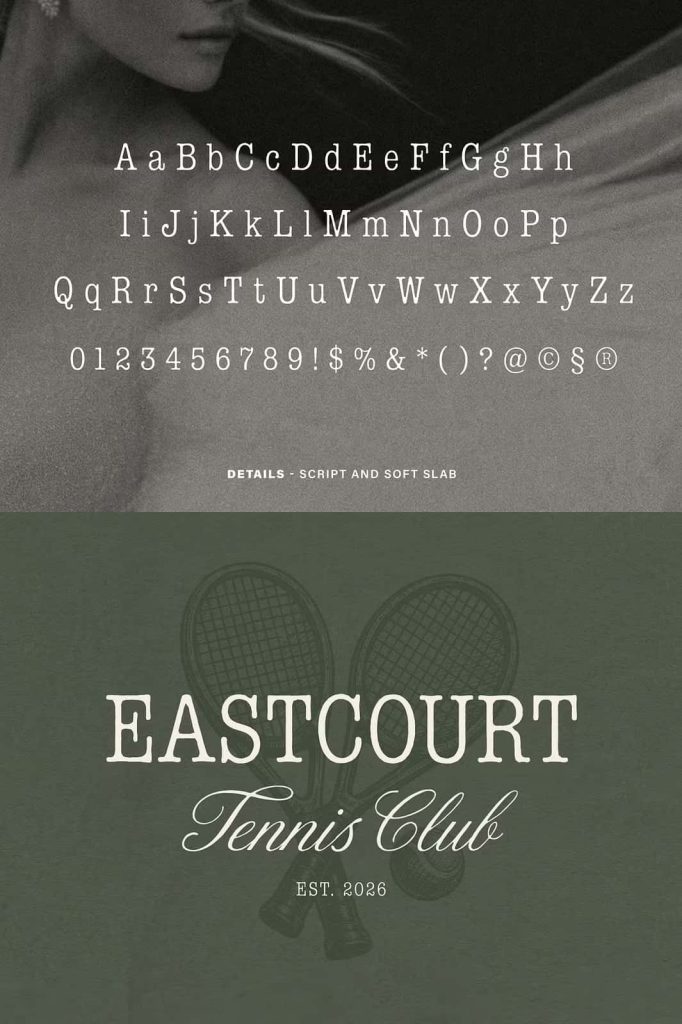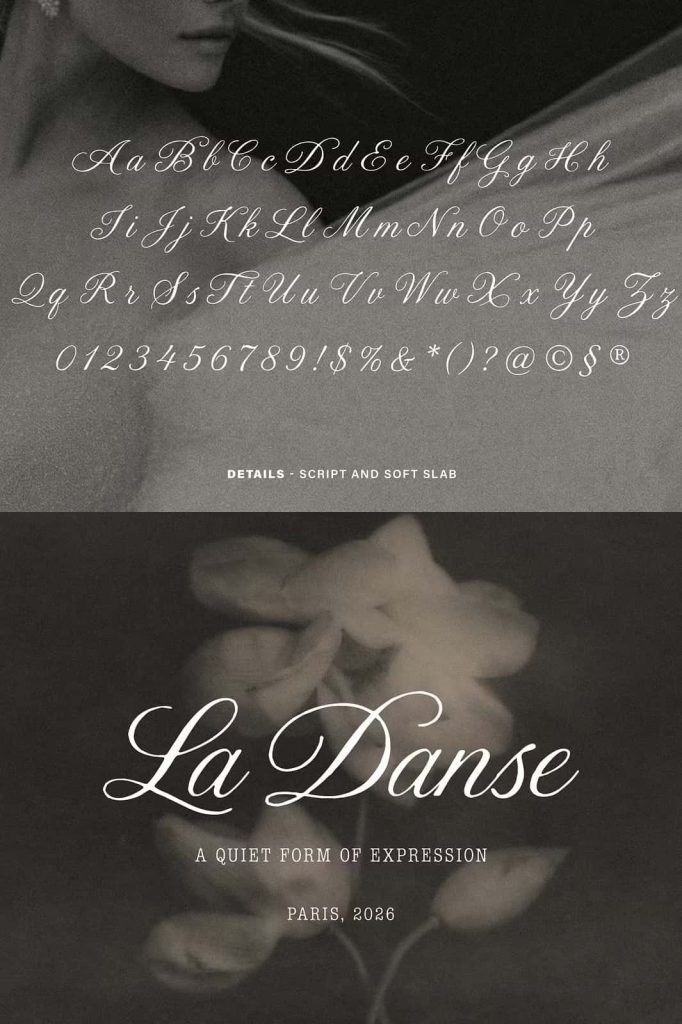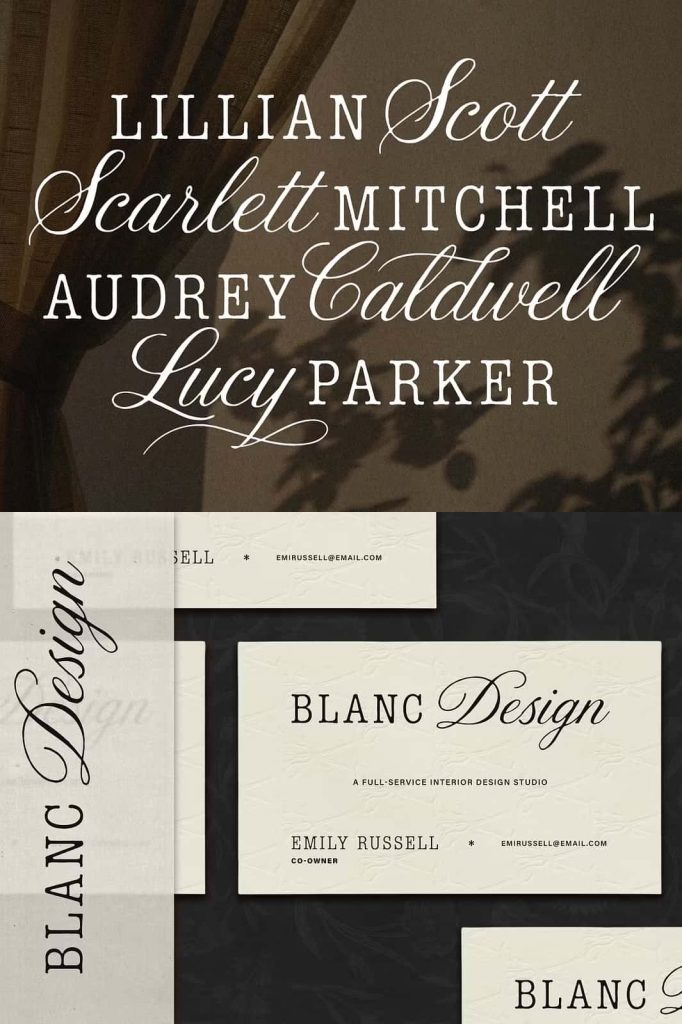
Details Font Duo
Details Font Duo is a thoughtfully designed typeface pairing that celebrates the beauty of contrast. Combining a graceful hand-drawn script with a refined soft slab serif, this font duo creates typography that feels sophisticated, modern, and effortlessly approachable. Every element has been carefully crafted to work together, allowing designers to create polished layouts with a natural balance between elegance and readability.
Whether you are building a luxury brand identity, designing premium packaging, creating wedding invitations, or producing stylish editorial layouts, Details Font Duo offers the flexibility and visual harmony needed to make every project stand out. The expressive script adds personality and warmth, while the slab serif introduces structure and clarity, resulting in a type combination that feels both intentional and professionally curated.
A Font Duo Built Around Beautiful Contrast
The defining feature of Details Font Duo is its perfect balance between expressive and structured typography. Rather than relying on a single design style, this font family pairs two complementary typefaces that naturally enhance one another.
The flowing script brings movement, creativity, and handcrafted charm to your headlines and logos, while the soft slab serif establishes a clean visual foundation for supporting text. Together, they create a seamless typographic system that helps designers organize content while maintaining an elegant aesthetic.
Expressive Hand-Drawn Script
Natural Flow and Handmade Character
The script font has been carefully illustrated with smooth curves and fluid strokes that recreate the appearance of authentic hand lettering. Every letter flows naturally into the next, giving words a warm and inviting personality that cannot be achieved with conventional digital fonts.
Its handcrafted appearance makes it ideal for creative projects where authenticity and elegance are equally important. The script performs beautifully in logos, product names, invitations, social media graphics, and branding materials that require a personal touch.
Custom Alternates for Creative Flexibility
Details Font Duo includes a collection of custom alternate characters that allow designers to personalize every composition. These alternate letterforms create subtle variations throughout your text, preventing repetitive letter combinations while enhancing the natural handwritten appearance.
By experimenting with different alternates, you can create unique typography that feels custom-made for every project, giving your designs greater originality and visual appeal.
Soft Slab Serif with Elegant Structure
The accompanying slab serif provides the stability that balances the expressive nature of the script. Its soft edges and carefully proportioned letterforms maintain excellent readability while preserving a refined appearance suitable for both print and digital applications.
Unlike traditional slab serif fonts that often appear heavy or rigid, this version introduces a softer personality that blends effortlessly with the flowing script. It serves as an excellent choice for subheadings, body text, product descriptions, website content, brochures, and editorial layouts.
Create Professional Typography with Ease
Details Font Duo allows designers to build sophisticated typography without needing multiple unrelated font families. The script naturally attracts attention and creates memorable focal points, while the slab serif organizes information with clean and consistent readability.
This thoughtful pairing simplifies the design process by providing a complete typography solution that supports visual hierarchy, improves user experience, and strengthens brand identity.
Perfect for a Wide Range of Creative Projects
The versatility of Details Font Duo makes it suitable for countless personal and commercial applications. Whether your design style leans toward minimalism, luxury, vintage, or contemporary aesthetics, this font duo adapts beautifully to your creative vision.
Recommended Applications
- Luxury branding and corporate identities.
- Logo design and signature branding.
- Wedding invitations and event stationery.
- Product packaging and premium labels.
- Fashion and beauty branding.
- Editorial layouts and magazine covers.
- Website banners and landing pages.
- Business cards and promotional materials.
- Social media graphics and advertising campaigns.
- Greeting cards and personalized gifts.
- Creative portfolios and presentations.
- Boutique shops and lifestyle businesses.
The combination of decorative and structured typography enables designers to create cohesive layouts that remain visually appealing while maintaining exceptional readability.
Optimized for Print and Digital Design
Details Font Duo has been developed to perform consistently across a variety of design environments. Large headlines highlight the elegant details of the script, while the slab serif remains crisp and readable even at smaller sizes. This versatility ensures outstanding results in print publications, packaging, websites, mobile applications, social media content, and marketing materials.
If you want typography that feels intentional, refined, and carefully curated, Details Font Duo is an excellent addition to your design library. Its handcrafted script, custom alternates, readable slab serif, and timeless visual harmony make it an ideal choice for branding, editorial design, packaging, invitations, and countless other creative projects where exceptional typography makes all the difference.